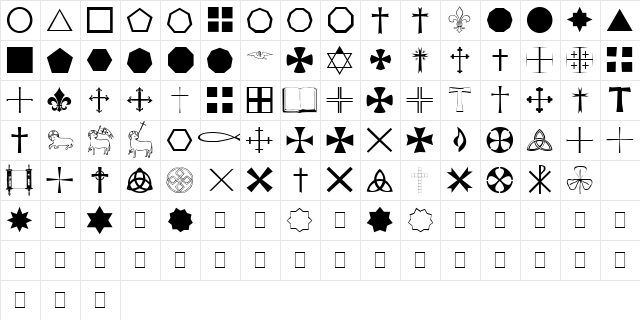
StarCross Religious Regular
Design Context for StarCross Religious Typeface
StarCross Religious takes a measured approach to typography — its balanced proportions and neutral character make it a reliable workhorse for both digital and print work.